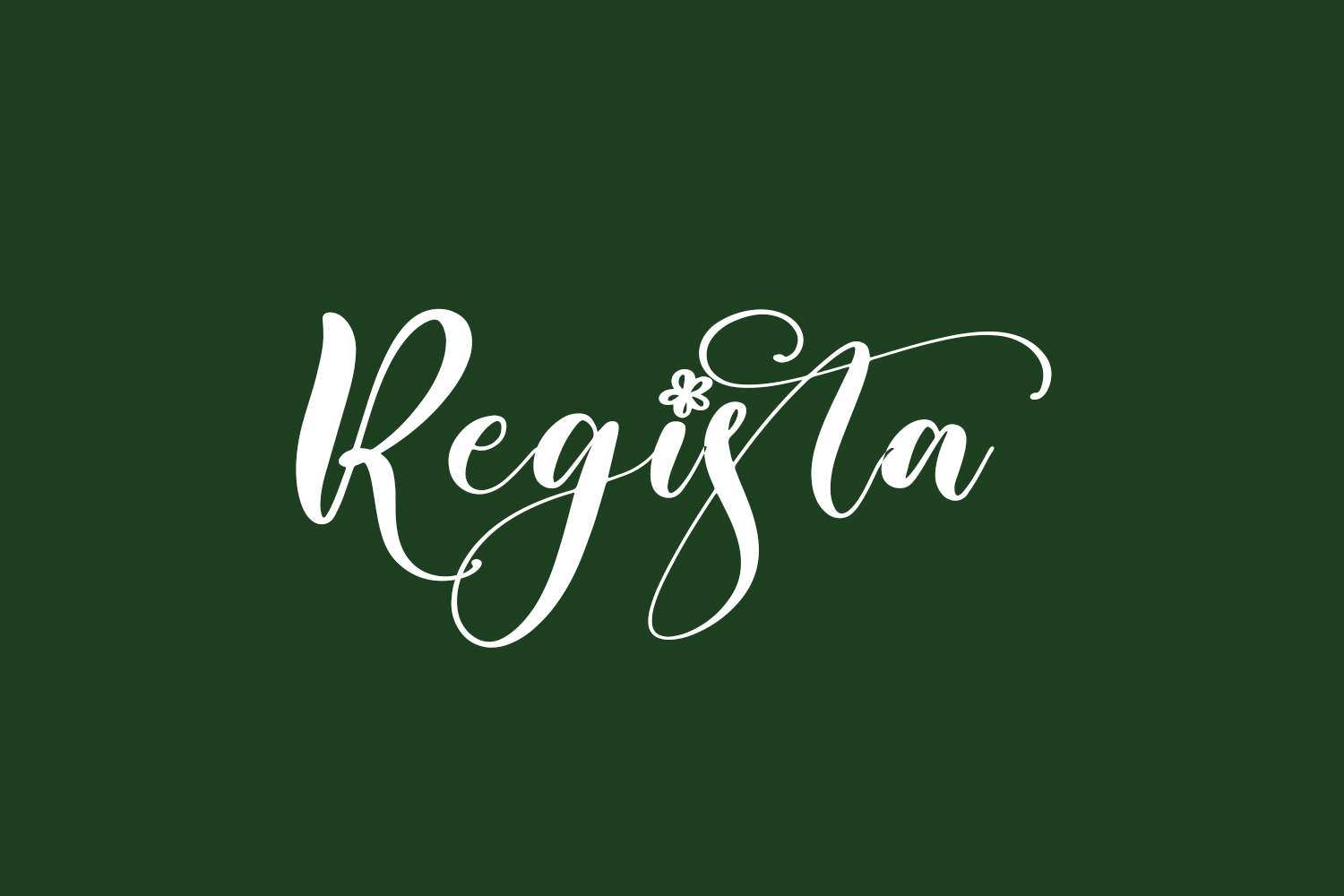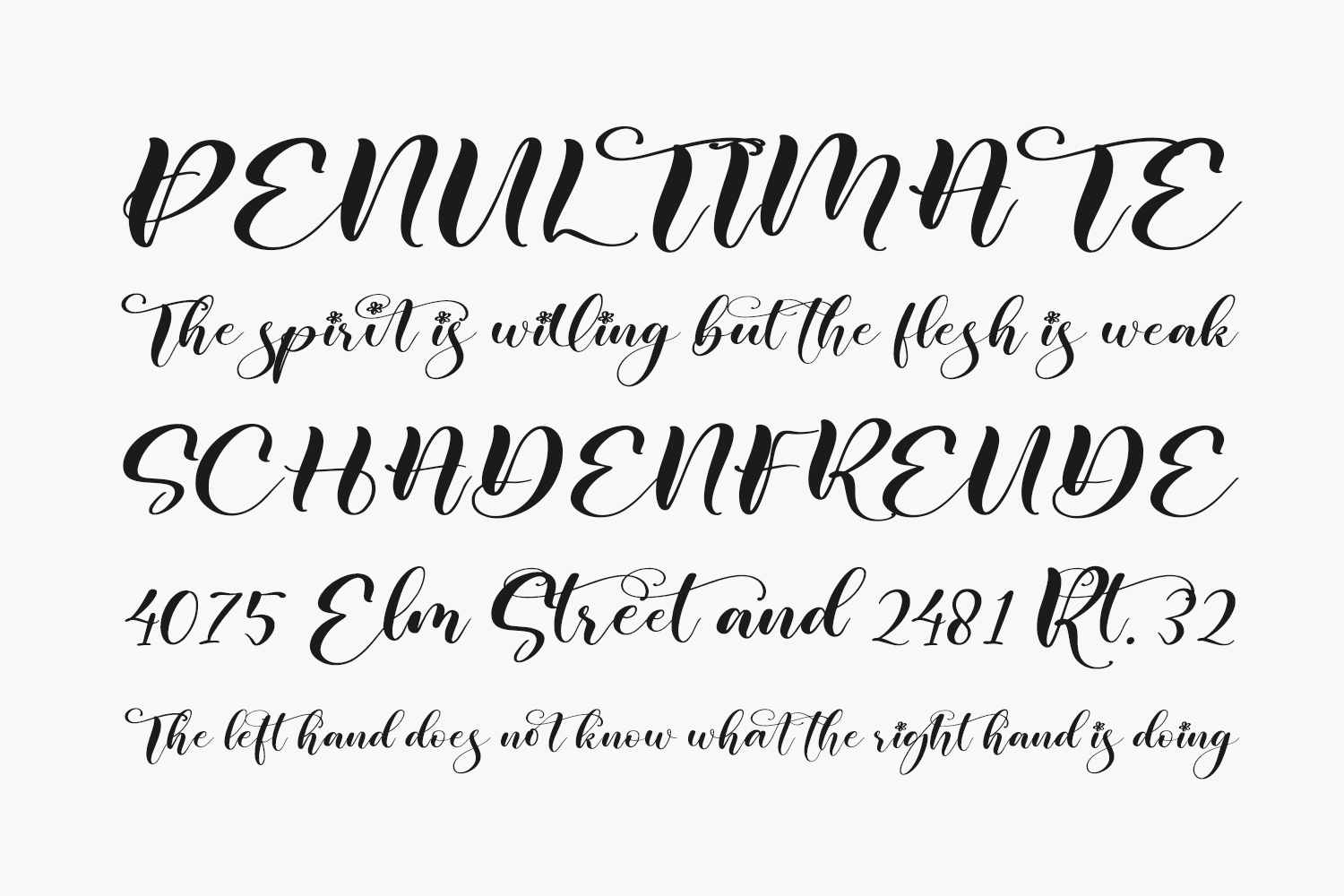
Regista Free Font Family is an elegant and timeless display script with a touch of calligraphy. The fluid strokes and carefully crafted letterforms exude sophistication and class, making it a perfect choice for high-end branding, wedding stationery, and other luxury projects. With its versatile style, Regista Free Font is sure to add a touch of sophistication to any design.